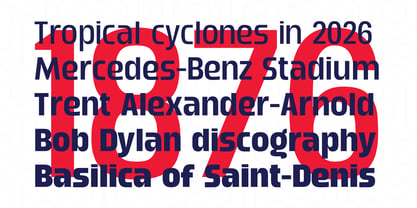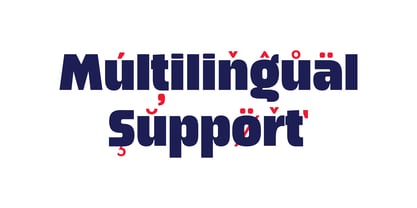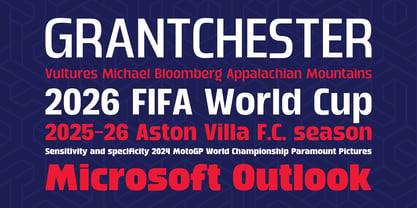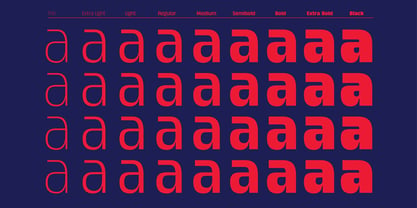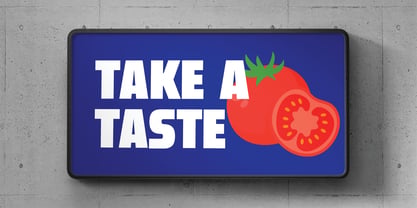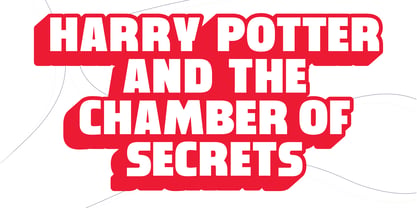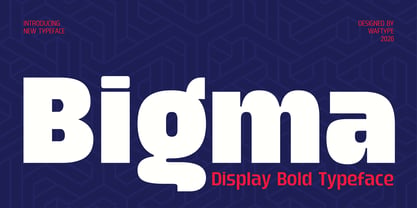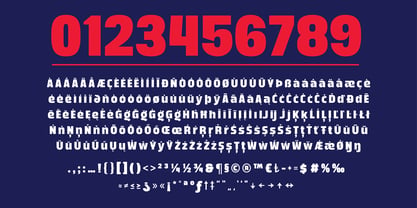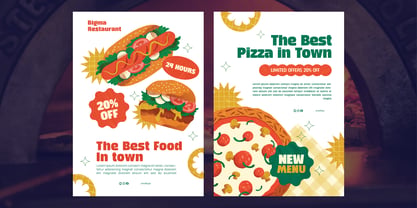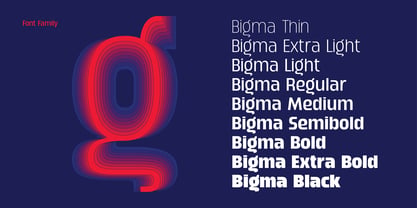
Bigma
von Waftype
Die Schriftfamilie Bigma wurde von Wafi Zimamul entworfen und von Waftype veröffentlicht. Bigma enthält 9 Stile und Familienpaketoptionen. Mehr über diese Familie
Bigma is a bold display font created to capture attention instantly. With 9 weight styles ranging from Thin to Black, Bigma provides flexibility for dynamic typography and modern visual communication. Perfect for headlines, branding, social media graphics, and print design, Bigma brings a confident and striking personality to every display project.
Designer: Wafi Zimamul
Foundry: Waftype